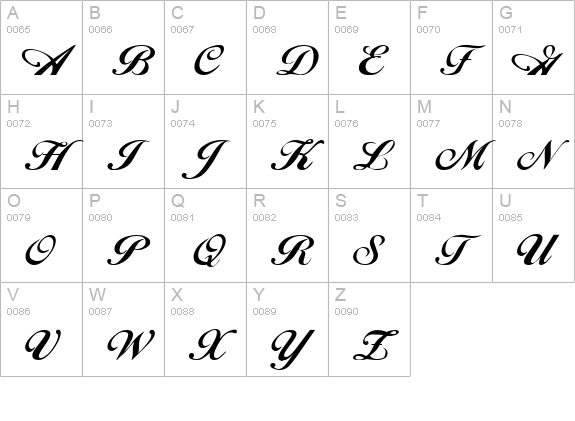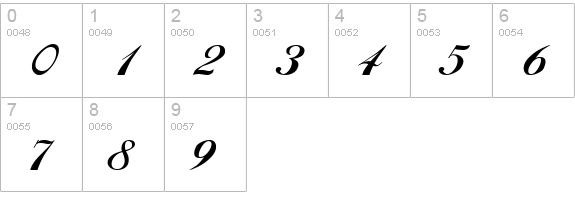
Hancock Regular Font Details
Hancock Regular is the standard, neutral variant in the Hancock typeface family \xE2\x80\x94 well suited to general body text, paragraphs, and standard typographic work.
Introducing Hancock Regular, a versatile and timeless typeface that exudes elegance and sophistication. With its clean lines and balanced proportions, this font is perfect for a wide range of design projects, from branding and packaging to editorial and signage. Hancock Regular offers a harmonious blend of modernity and classicism, making it suitable for both contemporary and traditional designs. Its subtle details and refined curves give it a unique personality that is sure to captivate and engage viewers. This font's versatility extends to its extensive language support, ensuring that it can be used for global projects with ease. Whether you're designing for English, French, Spanish, or any other language, Hancock Regular has got you covered. One of the most appealing aspects of Hancock Regular is that it is freely available to download at FontsMarket.com. This means that designers and typographers can access this exceptional font without any cost, making it an ideal choice for those on a budget or looking to experiment with new typefaces. So why wait? Enhance your designs with the timeless beauty of Hancock Regular. Download it for free at FontsMarket.com and unleash your creativity today.